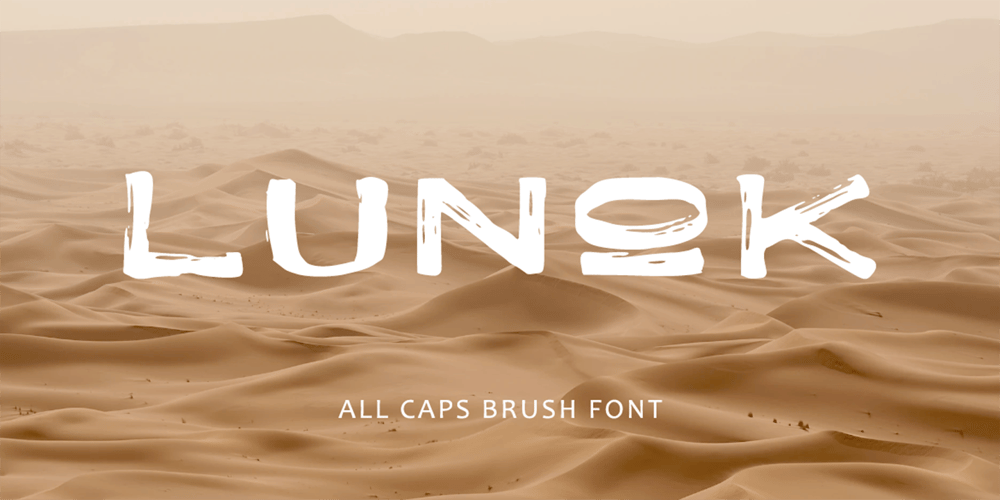
Lunok Brush Font Family was designed by Rochadi Sudarma and published by Rochart. Lunok Brush contains 2 styles and family package options. Lunok is an all caps brush font, created to make every text look like authentic hand lettering. The all-caps marker typeface is perfect for bold headlines, posters, shirt designs, fashion brands, social media content and funky ads. Mix & match the stylistic alternate or ligature, so that you’ll have lots of different letters for that unique look & feel!What’s included: ALL CAPS LIGATURES STYLISTIC ALTERNATE MULTILANGUAGE SUPPORT NUMBER & PUNCTUATION Have fun creating with this brush font and let me know if you’ve any wish, suggestion or feedback ๐